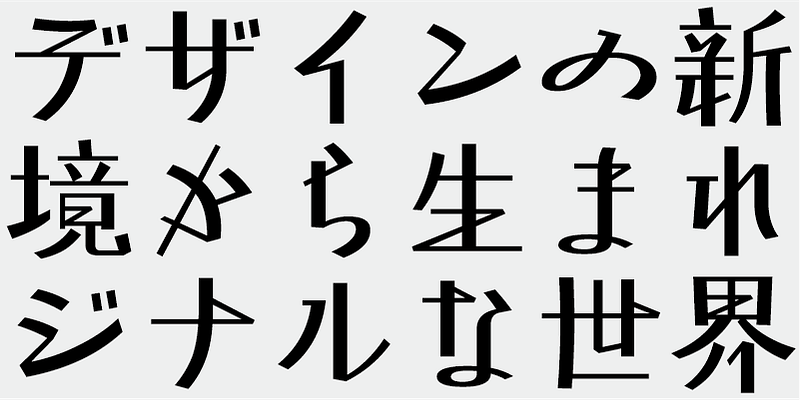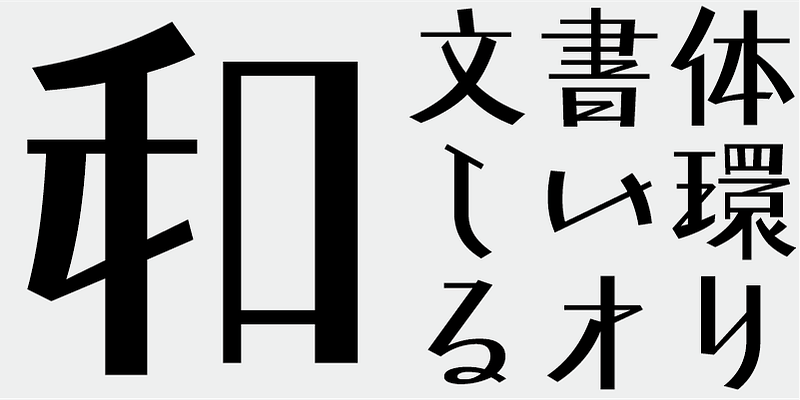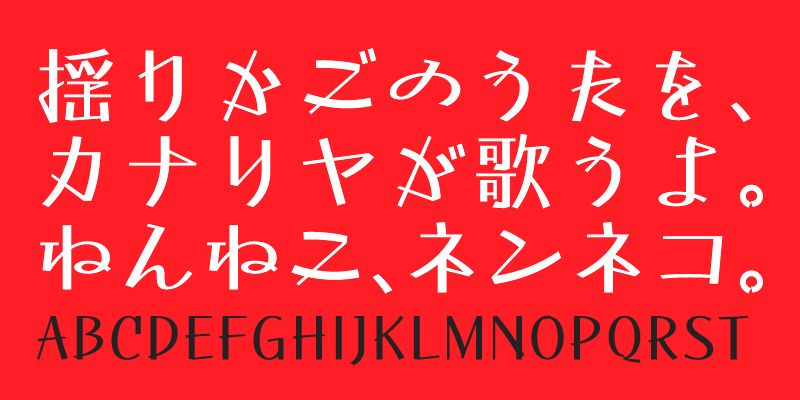
Gagaku is named after the word meaning “Japanese court music”. It is an elegant, decorative and neo-classical typeface, composed of kanji (ideographic) characters with Japanese-style elements and unique kana characters. The delicate and sharp design will be effective both for body text and display purposes.